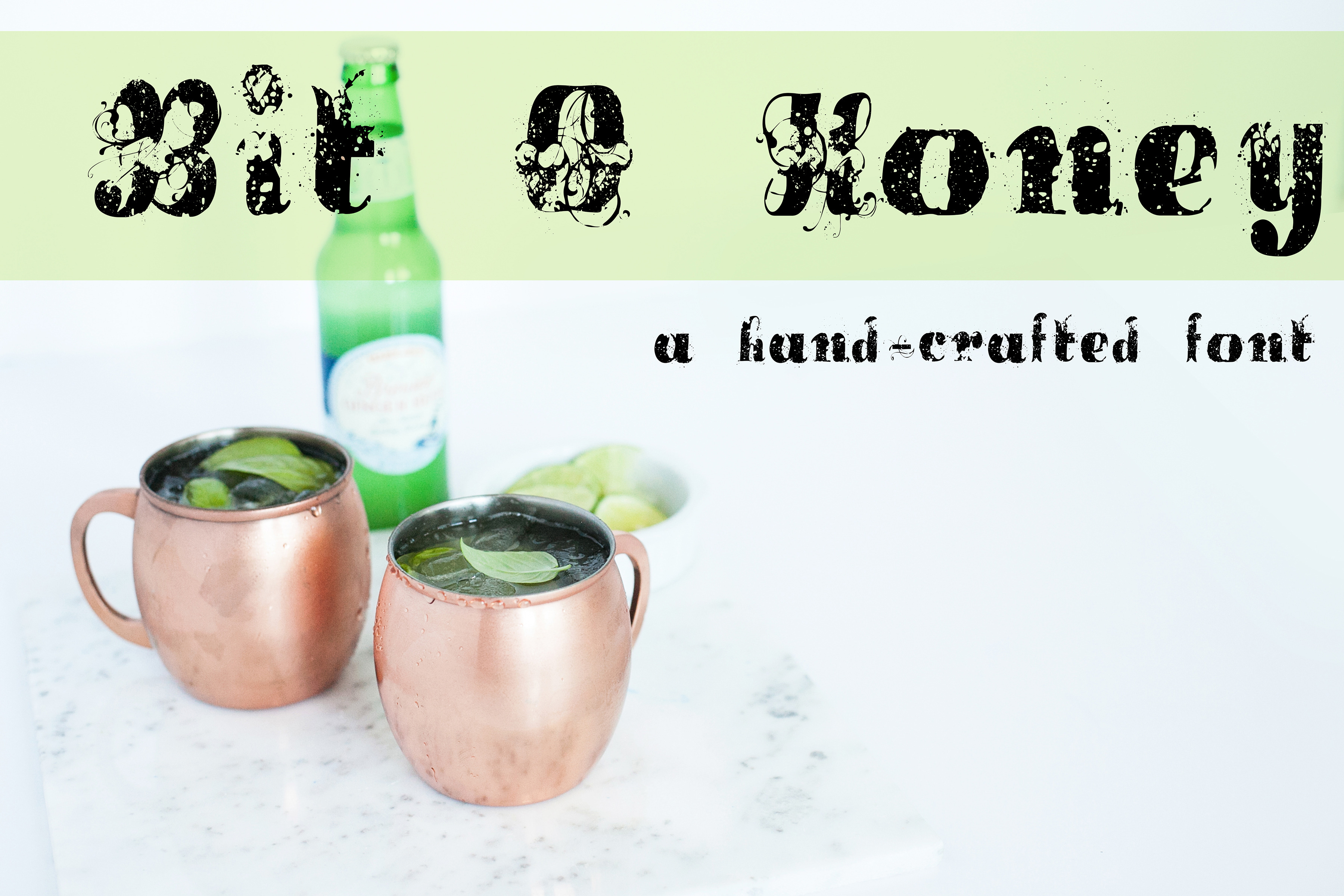
BIT O HONEY Hand Crafted Font
This Bit O Honey font is a funky, chunky, spunky deal! Available in TTF file, this font has a full alphabet, numbers, and symbols.